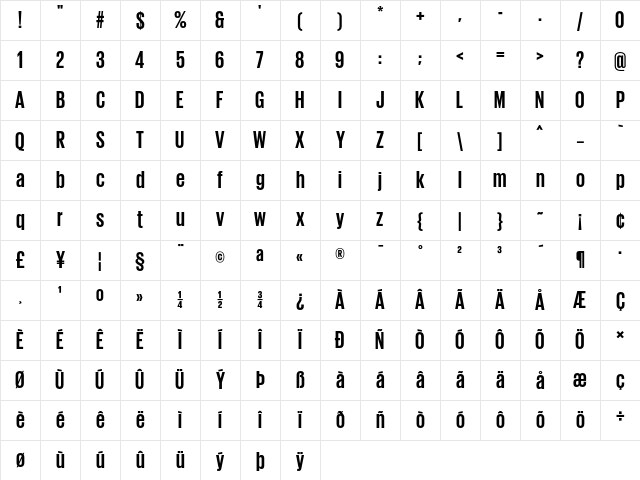
Giorgio Sans Bold Regular
Foundry: Commercial Type
Designer: Christian Schwartz & Paul Barnes
Design Context for Giorgio Sans Bold
Giorgio Sans Bold is a composed and adaptable typeface that performs quietly and consistently across a wide range of design contexts. Its bold stroke weight gives it real presence on the page.